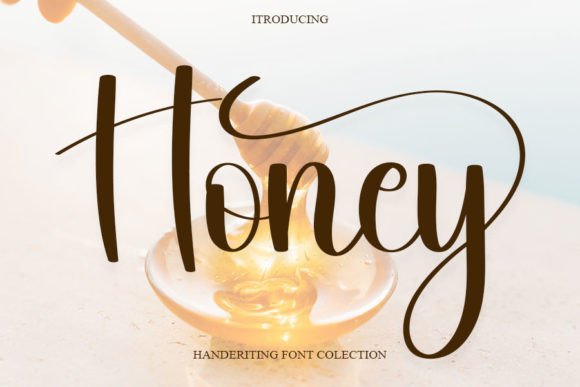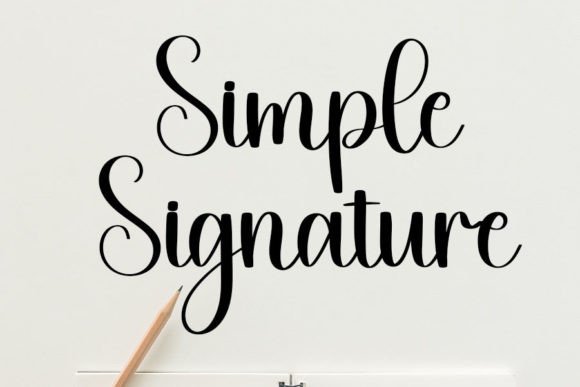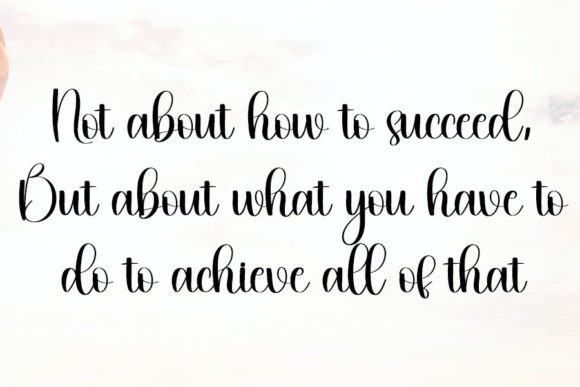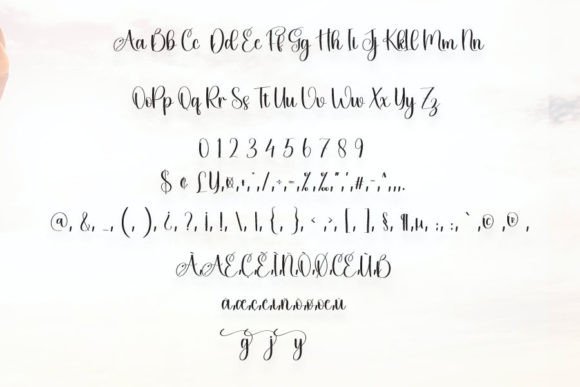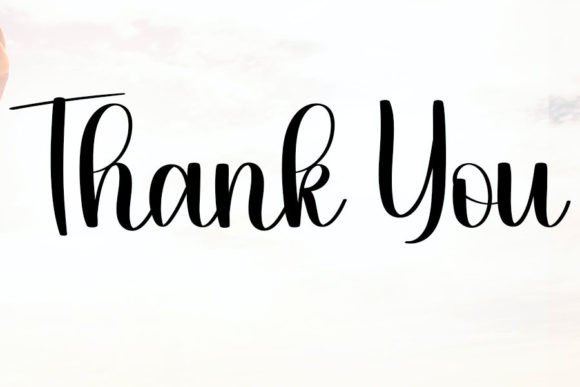
Honey Font
About Honey Font Download
The Honey Font Download is a fun and friendly handwritten script designed to bring joy and warmth to your creative projects. With smooth strokes and a playful handwritten rhythm, it adds personality to everything from greeting cards to branding materials. Whether you design posters, invitations, or digital content, Honey delivers a natural and versatile style.
A Playful Script with Friendly Energy
The Honey script font combines clean handwritten strokes with modern design balance. As a result, it feels approachable, stylish, and adaptable. Furthermore, it works seamlessly for both personal and professional projects, making it a dependable tool for designers.
Handwritten fonts add a personal touch to stationery. The Honey Font is perfect for wedding invitations, thank you notes, birthday cards, and seasonal greetings. Because of its joyful curves, every card feels polished and unique. In addition, it helps create warm and memorable designs.
Branding and Logo Design with Honey Font
Typography sets the tone for a brand. The Honey handwritten font is an excellent choice for boutique logos, product packaging, and promotional designs. Its fun handwritten flow makes businesses appear approachable while keeping a professional image. Therefore, it works especially well for lifestyle, craft, and creative industries.
Posters, Titles, and Creative Displays
The Honey Font Download also shines in posters, book covers, magazines, and banners. It maintains readability at all sizes while adding handwritten charm. Consequently, it is a reliable choice for designers seeking creativity and elegance together.
In today’s online world, fonts must be engaging and flexible. The Honey typeface integrates smoothly into Instagram posts, YouTube thumbnails, Pinterest boards, and blogs. Because of its playful handwritten strokes, it makes digital projects modern, fun, and attractive.
Why Designers Choose Honey Typeface
Designers value fonts that balance charm with usability. While some handwritten fonts may look decorative but lack clarity, the Honey handwritten script keeps its fun personality while remaining legible. This makes it suitable for professionals as well as hobbyists. Moreover, its timeless look ensures it stays trendy in future projects.